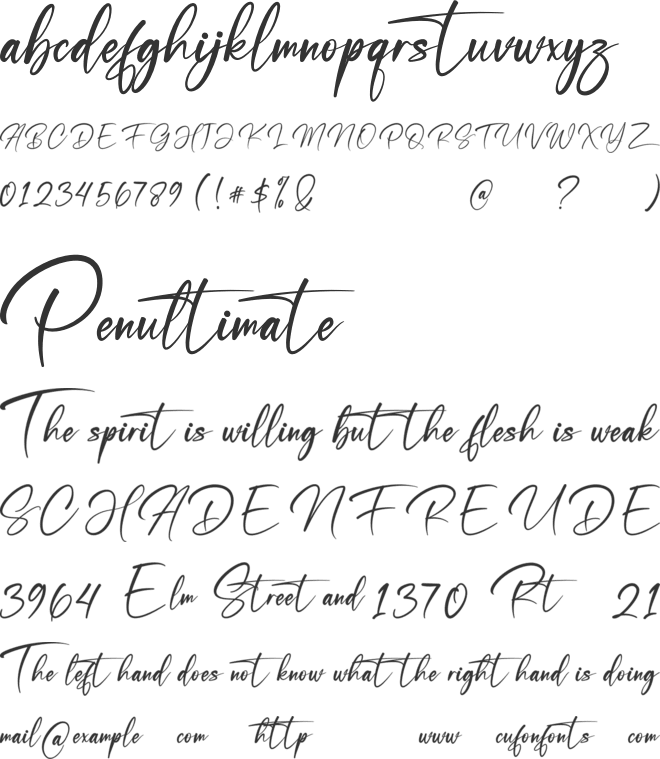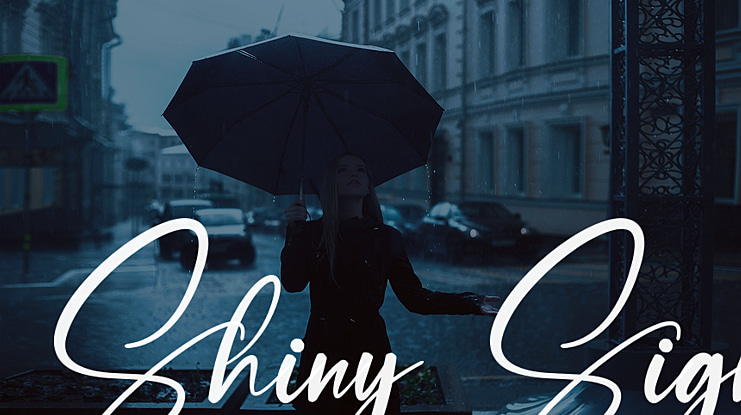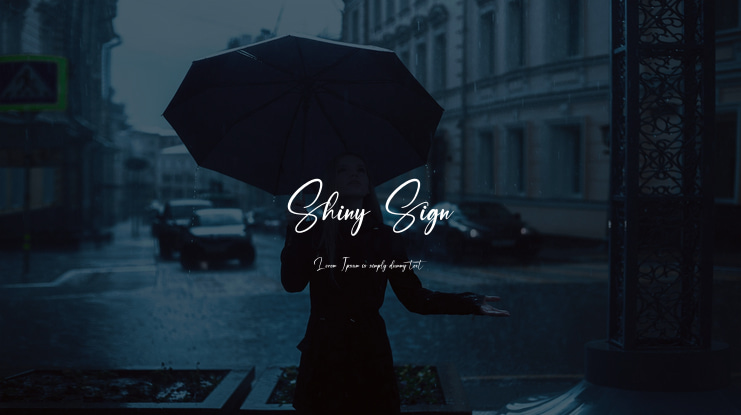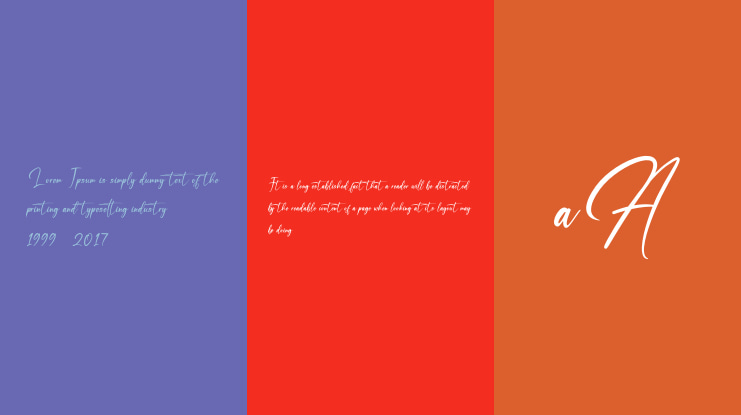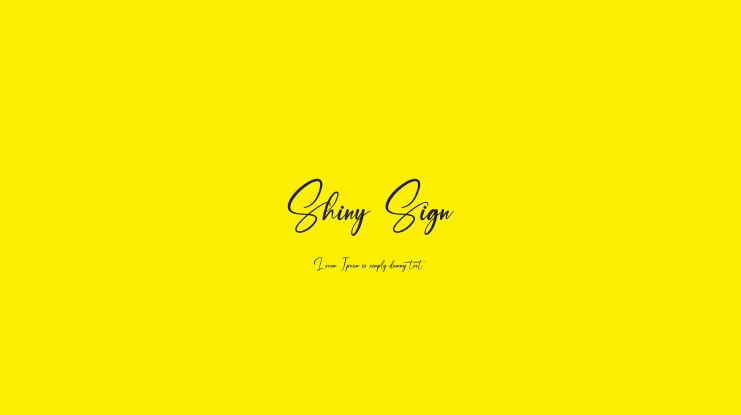
Shiny Sign Font
This is a classy signature font, that features a very delicate and classy look. So balanced and good look. This font is perfect for designing t-shirts, invitations, magazines, photography and more. this font was designed to enhance the beauty of your projects.